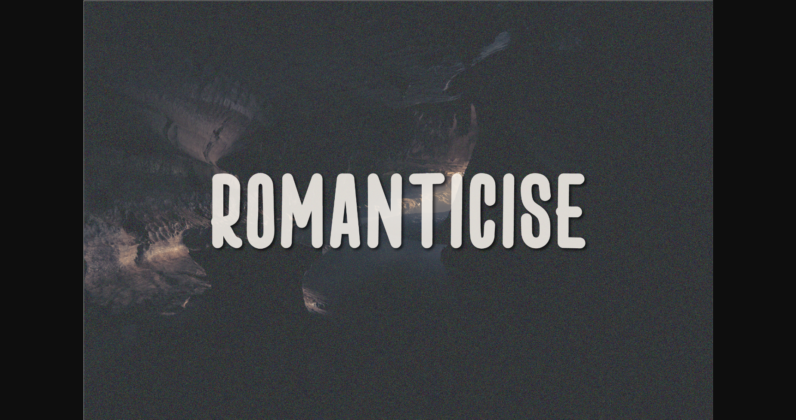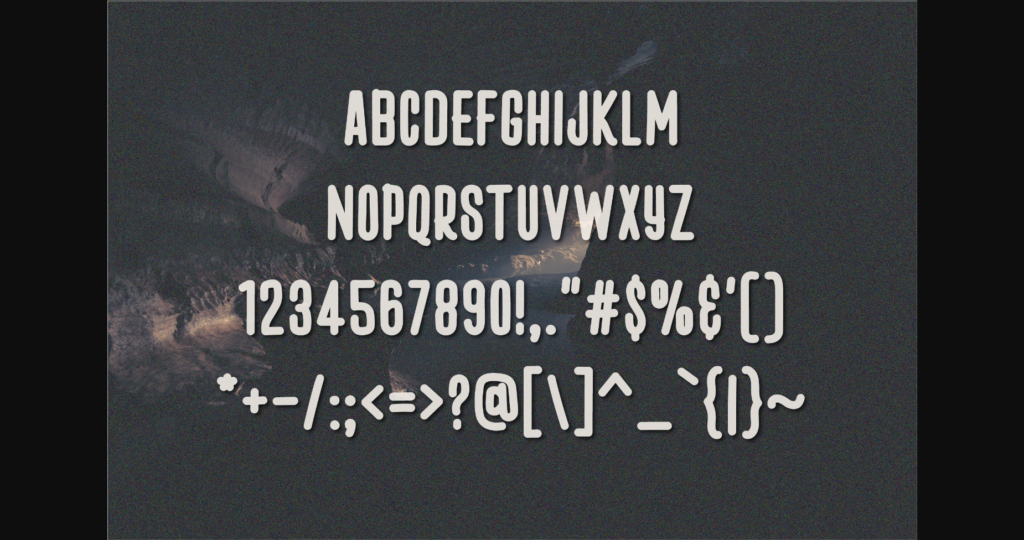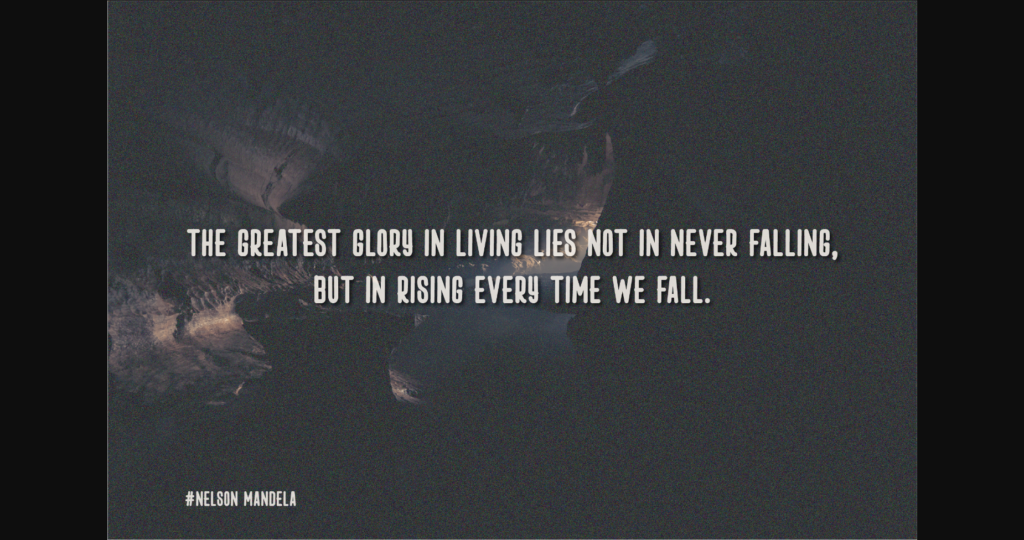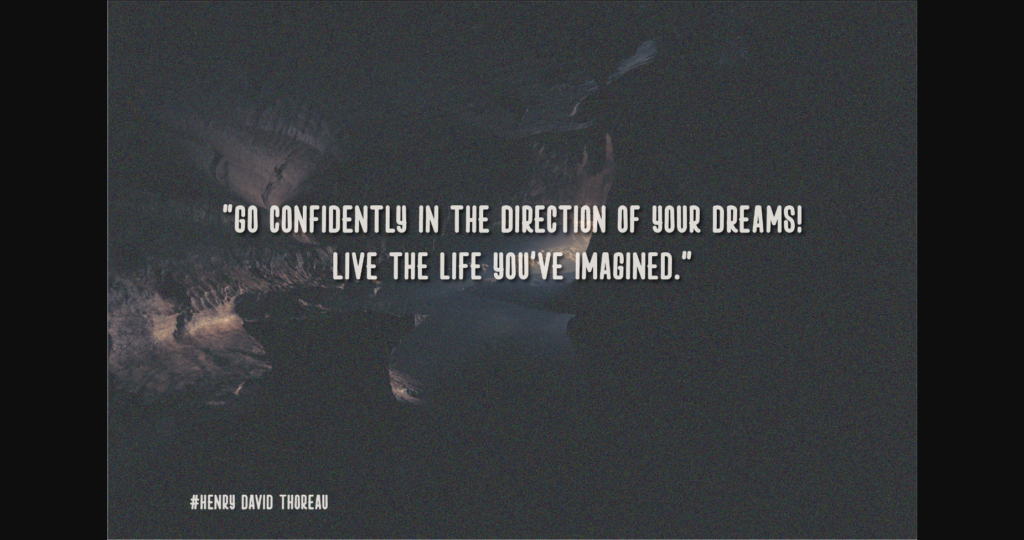
HomeSans Serif FontsRomanticise Font Sans Serif Fonts Romanticise Font FacebookXPinterestWhatsApp 1 of 7 ... Romanticise Font Poster 2... Romanticise Font Poster 3... Romanticise Font Poster 4... Romanticise Font Poster 5... Romanticise Font Poster 6... Romanticise Font Poster 7... About Romanticise Font Romanticise is a quirky all-caps font made up of capital letters. This font is perfect for social media or crafty projects. Simple and smooth perfect for crafting, t-shirts, decals, cards, invitations and so much more. DOWNLOAD NOW People also explored Ivanka Rachel Font Happy Monday Font Samantha Pastel Font Deleplace Awkward Font Play Cart Font Dandelion Font Maritza Beatric Font Rollestix Font 324 0 TagsRomanticise Font Previous articleStrawberries FontNext articlePierrce Font LEAVE A REPLY Cancel reply Comment: Please enter your comment! Name:* Please enter your name here Email:* You have entered an incorrect email address! Please enter your email address here Website: Save my name, email, and website in this browser for the next time I comment. Personal Use Free Street Cred Personal Use Free Read more about this font Good Mood Personal Use Free Read more about this font Pridaem Cooper Personal Use Free Read more about this font Burgie Personal Use Free Read more about this font BLOG Free Fonts Risk: Why Free Fonts Can Be Dangerous for Designers Free Fonts Risk: Why Free Fonts Can Be Dangerous for Designers Using free fonts is a common practice in web and graphic design. However, the... To increase your work productivity, choose the most readable fonts. Top 7 Google Fonts Alternatives for Faster and Privacy-Friendly Web Design (2025) Fonts That Capture the Spirit of New York City